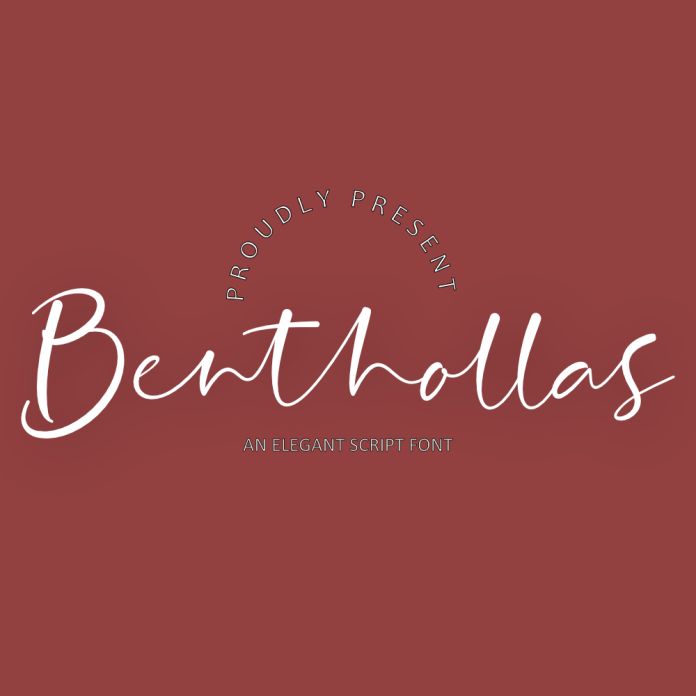
"Benthollas" is a beautifully crafted handwritten font that combines elegant fluidity with a touch of rustic charm. Its unique strokes and natural curves capture the essence of personal expression, making it ideal for projects that require a warm, human touch. Whether you're designing a logo, invitation, or brand identity, "Benthollas" adds an organic, timeless feel with its flowing, effortless style. Perfect for those seeking a handwritten font that balances both sophistication and approachability.